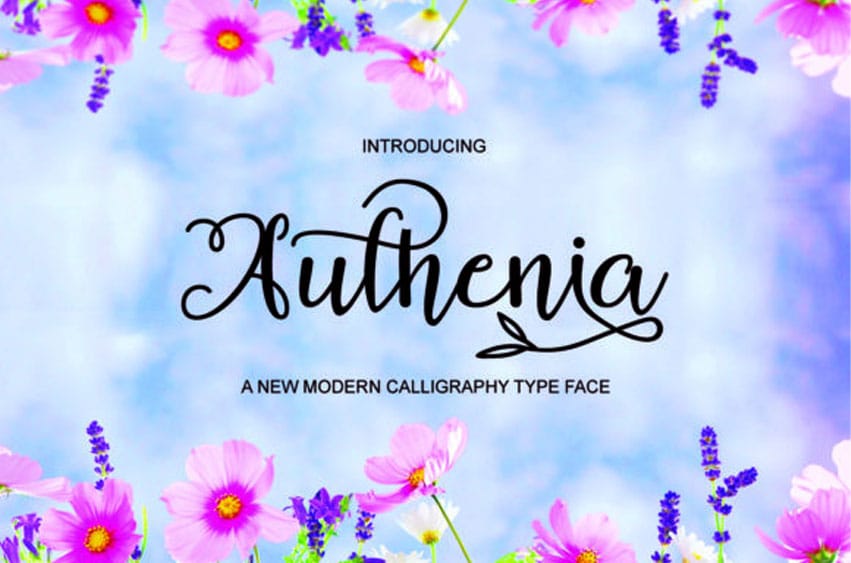
Authenia Font is an unbelievably sweet and original script font that delivers elegance with a playful twist.
Crafted with high attention to detail, it gives you the best design experience.